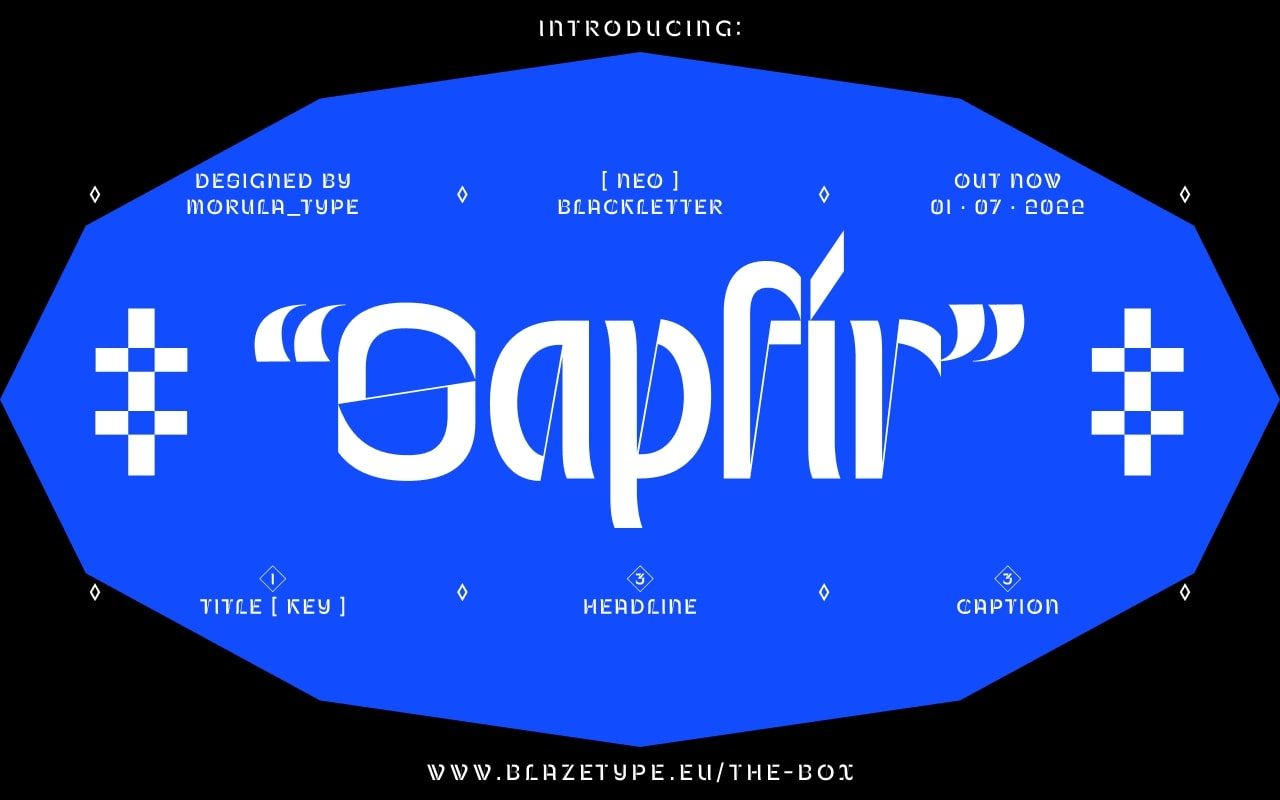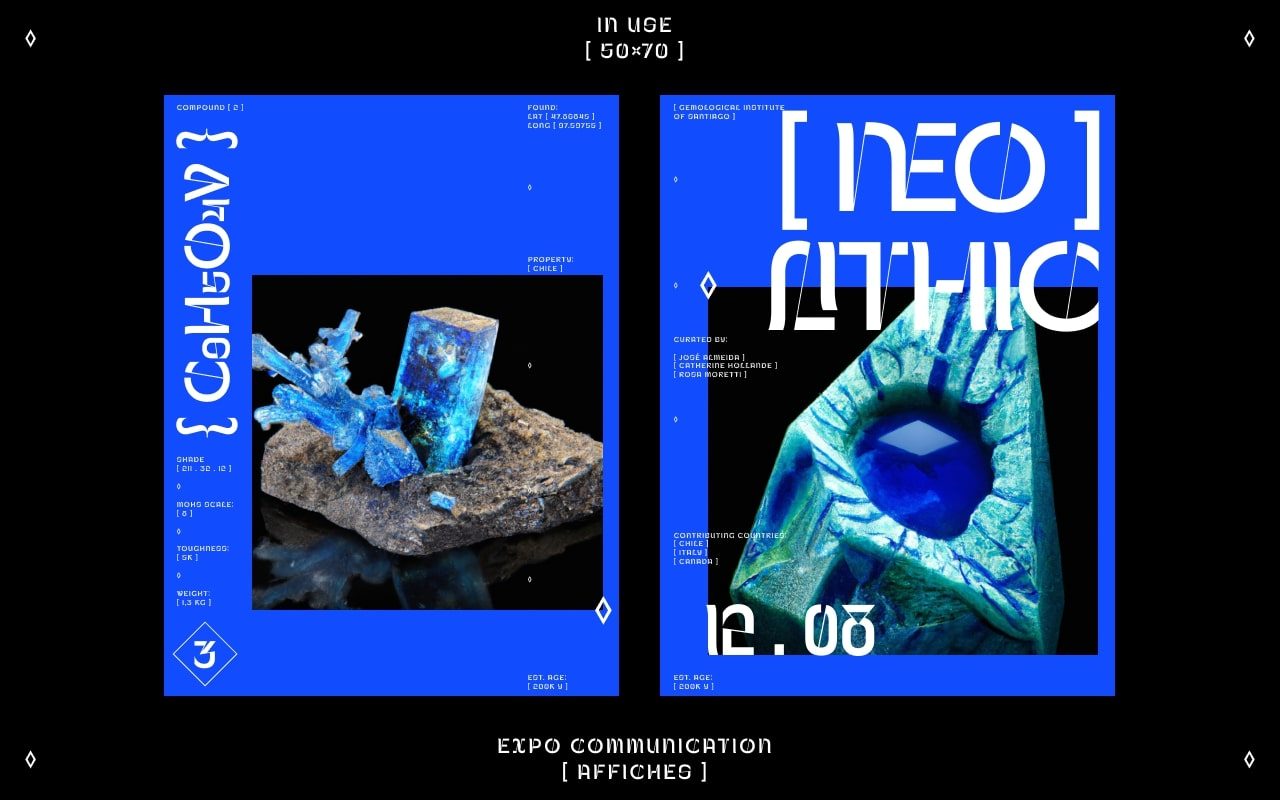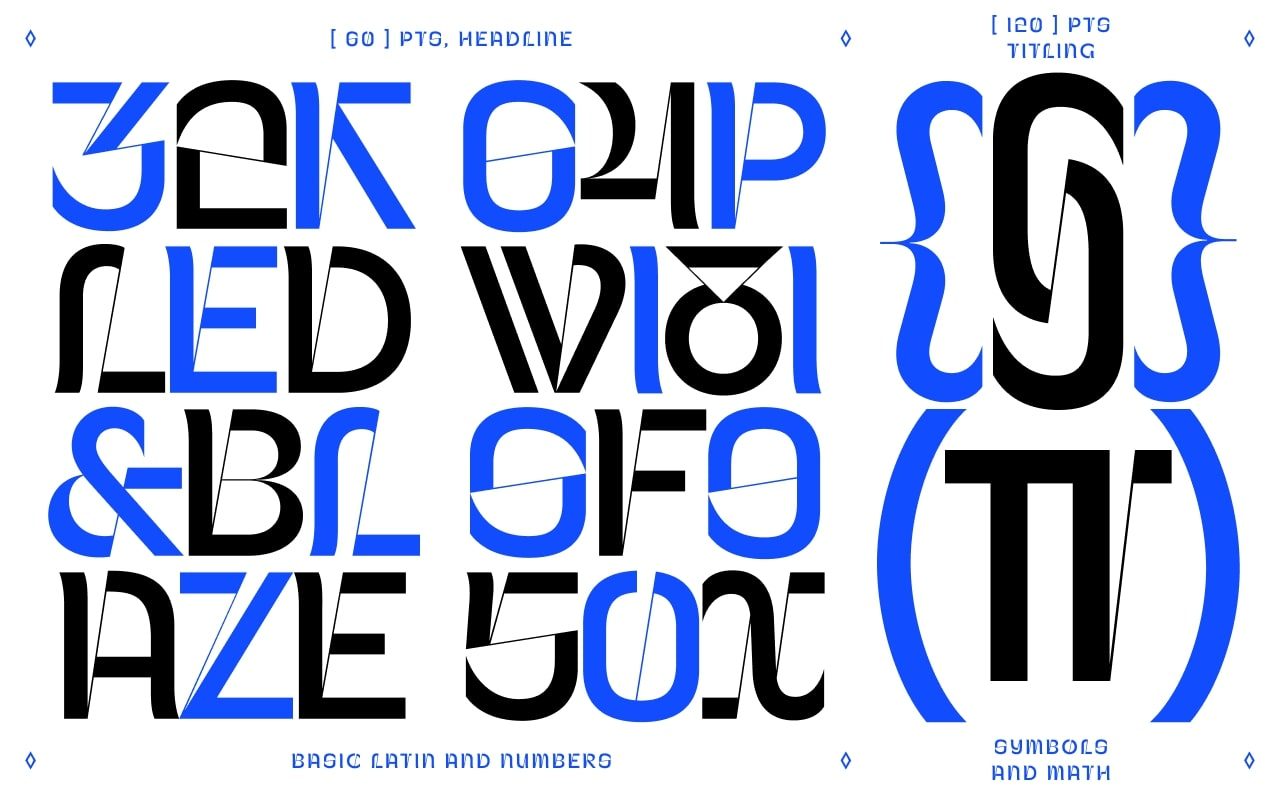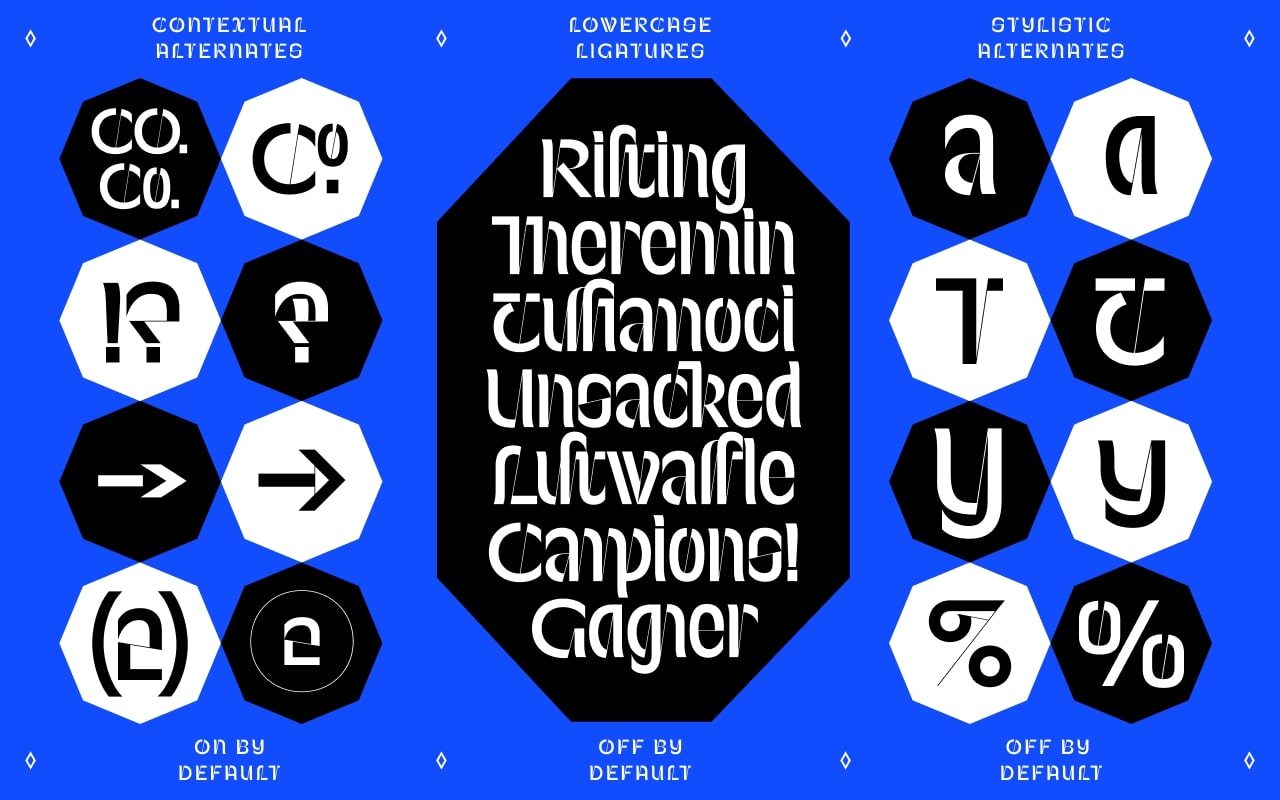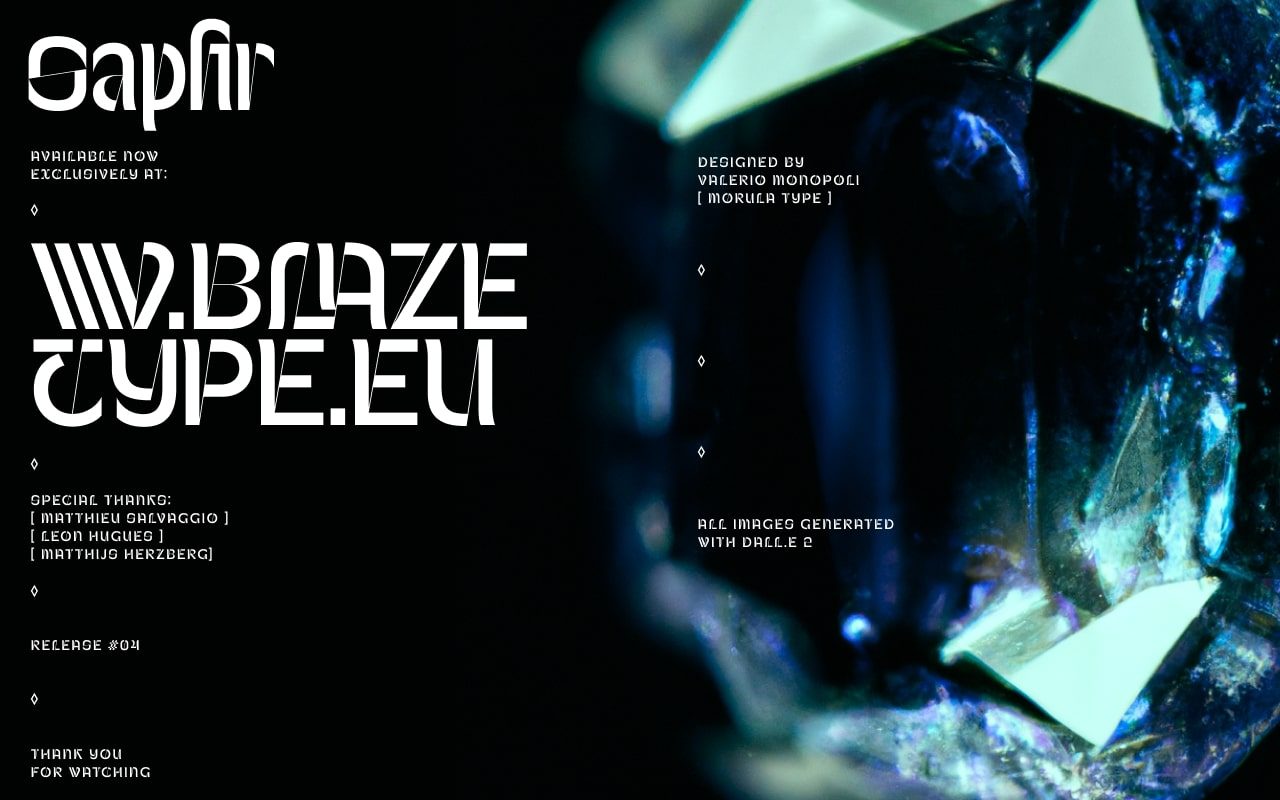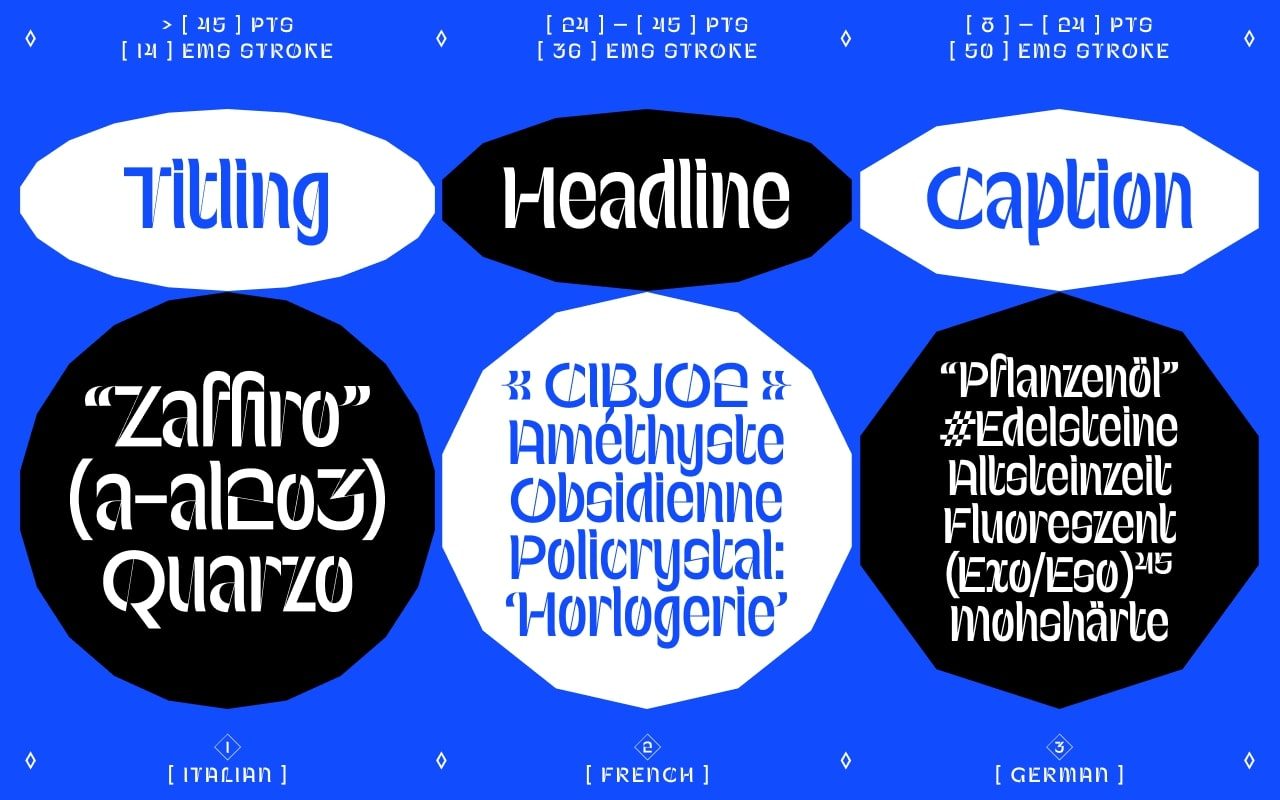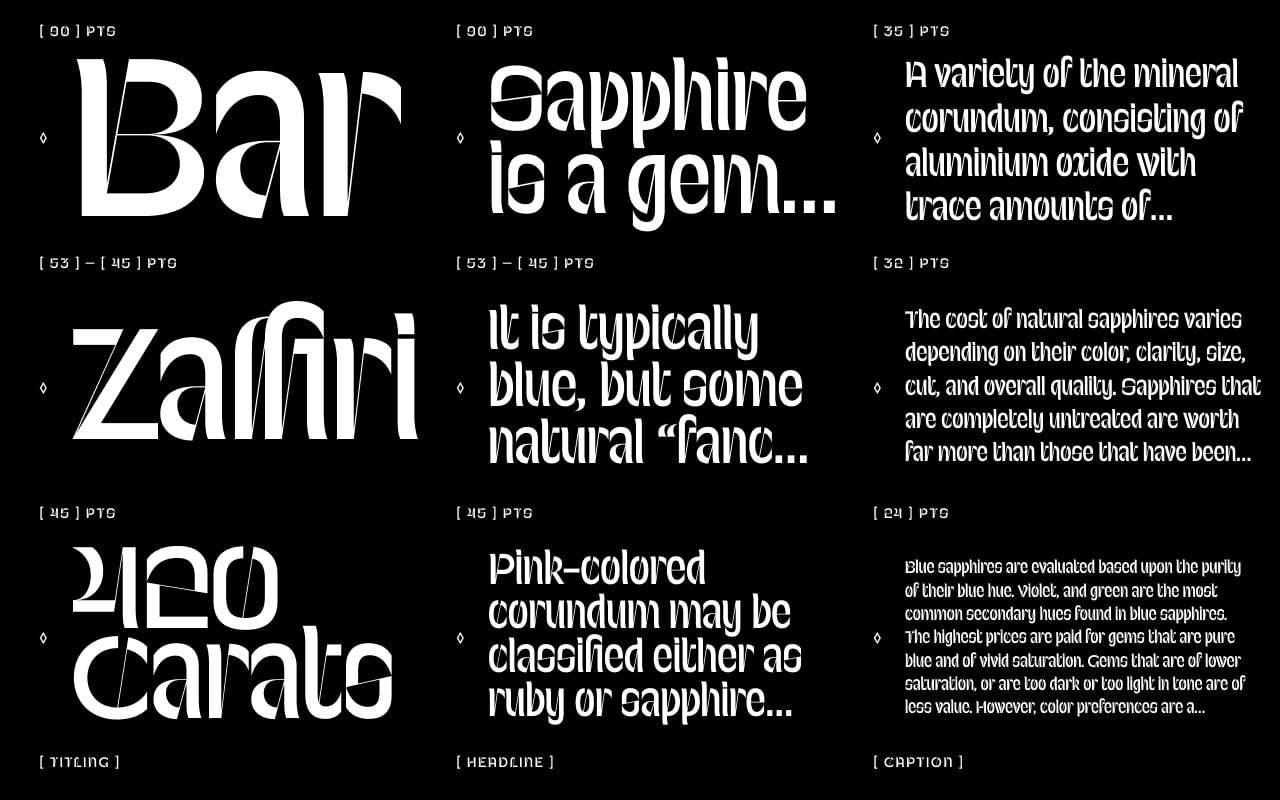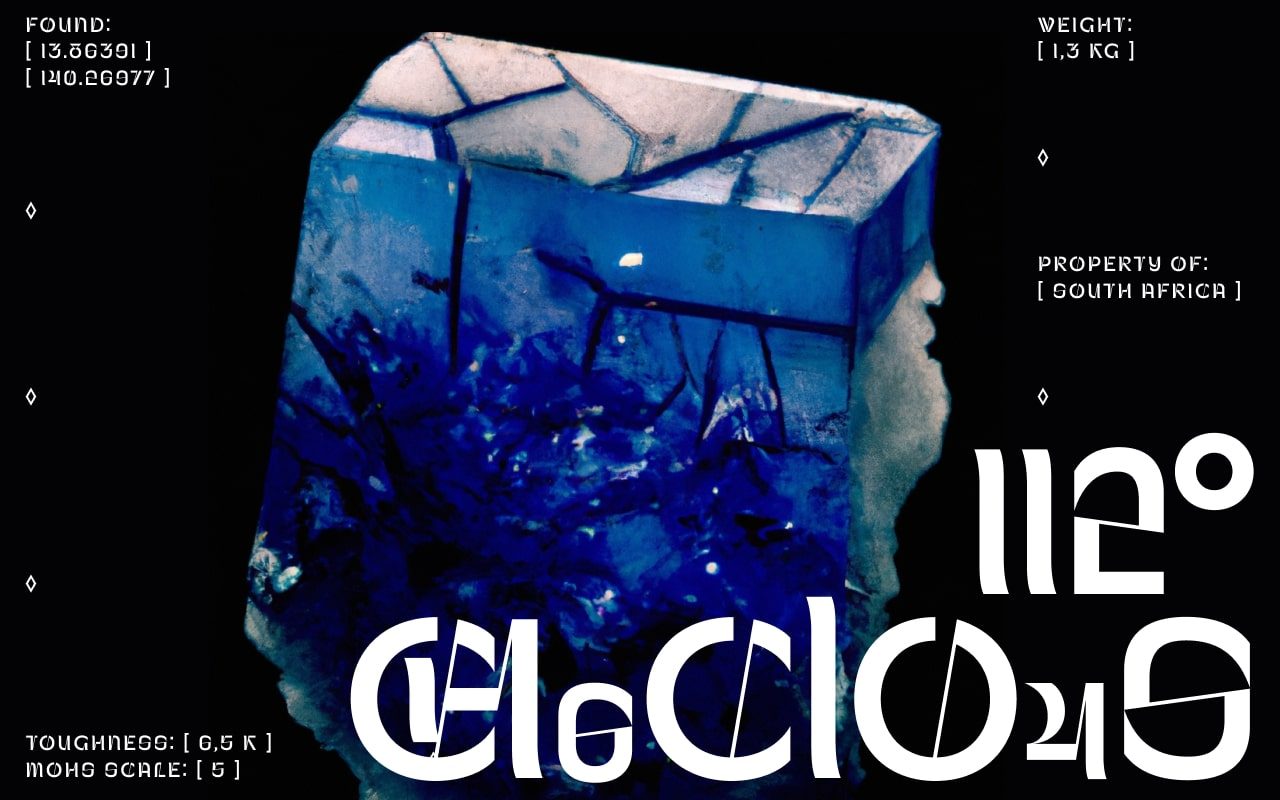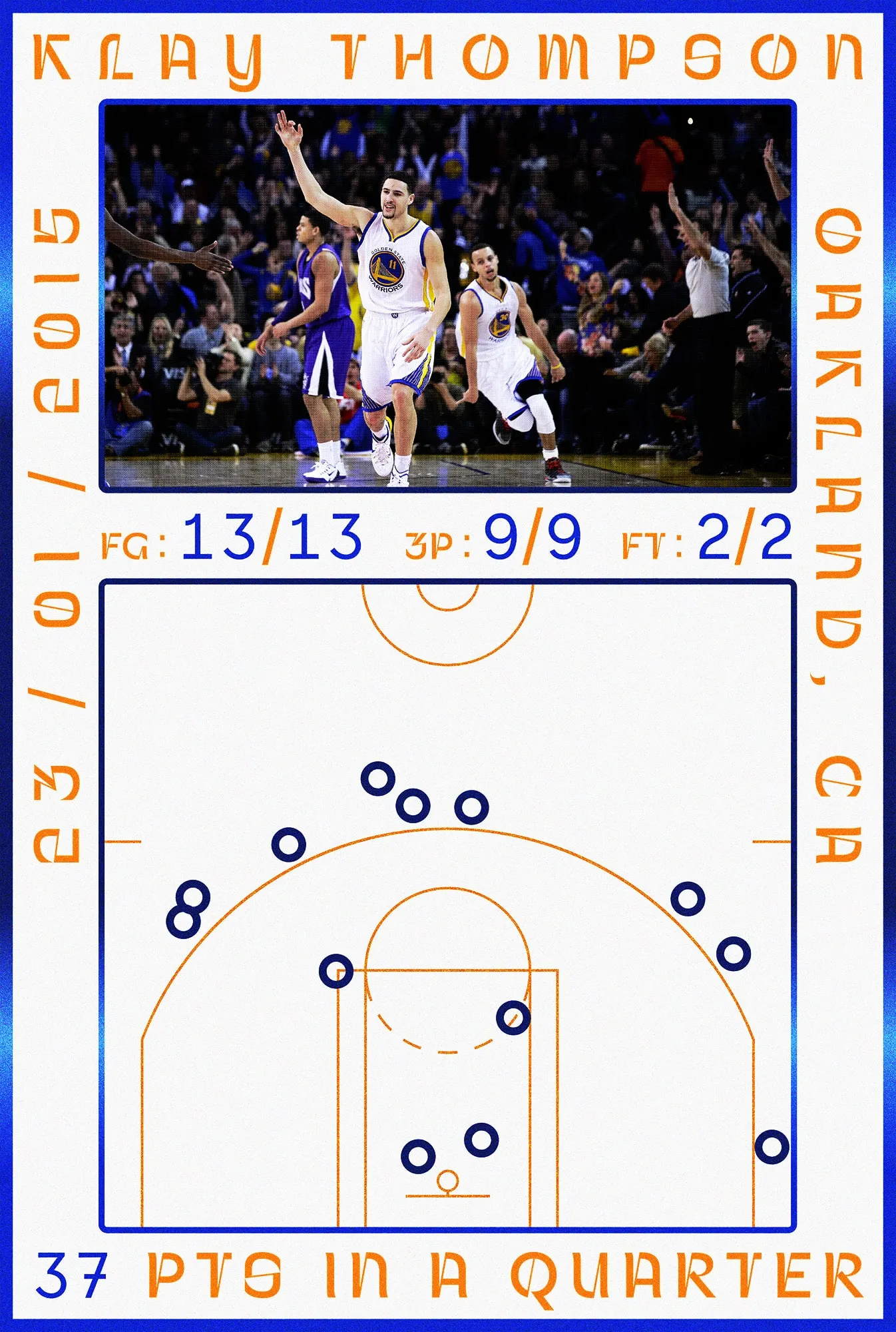
Sapfir
Sapfír (Sapphire in Ukrainian), is a mix between a contemporary approach to a blackletter font design and the cutout shiny aspect of a gem.
Sapfír is a chiselled chimaera designed by mixing the minimal yet unmistakable shapes of Antique Olive font from Roger Excoffon with the vibrant rhythmical patterns of blackletter. Much like the gemstone it's inspired from, its sliced construction produces a multifaceted texture through which the cutting lines often converge and collapse into ligatures.
Just like for gemstones, Sapfír's cuts are intended for different usages related to optical size. You can use it as a small, shiny element of decoration or showcase it as a central “exposition piece” in your design. With three different styles, Caption, Headline & Title, this font family will do wonders in any text layouts whether they be print or digital. Sapfír, a gem that will undoubtedly steal the beholder’s attention.
Valerio Monopoli